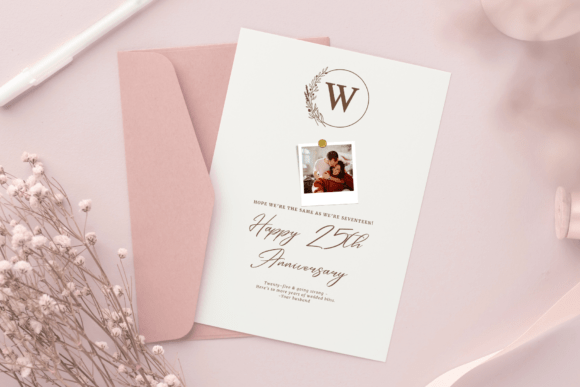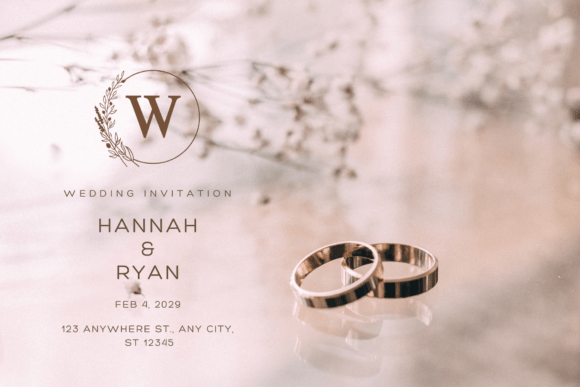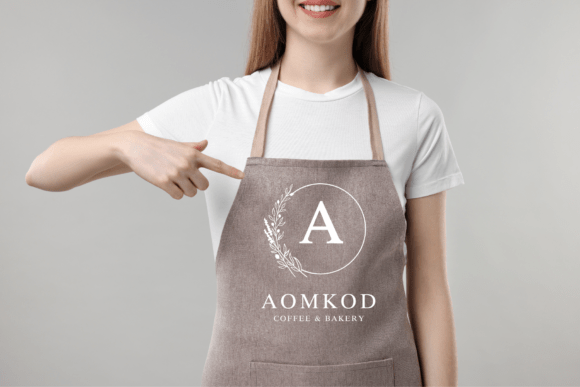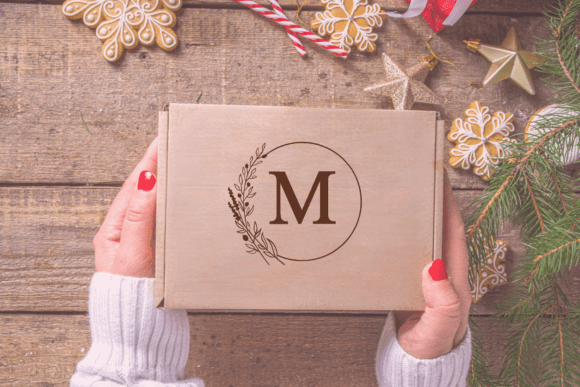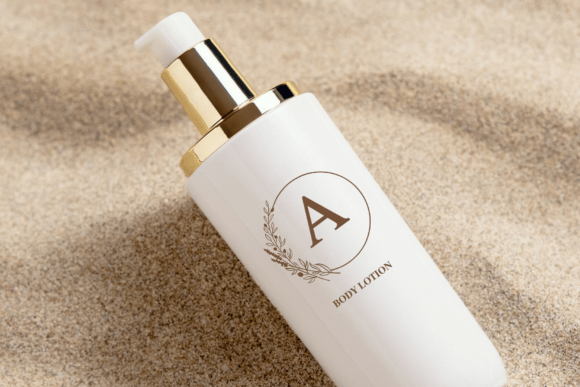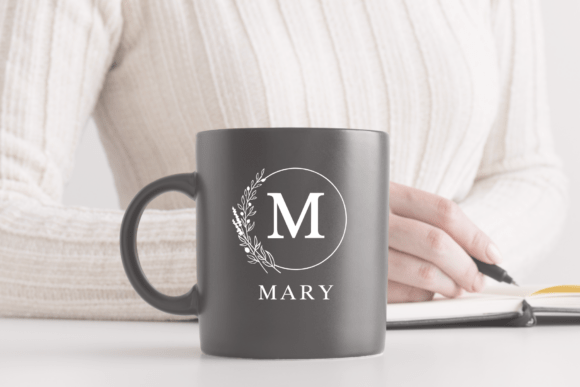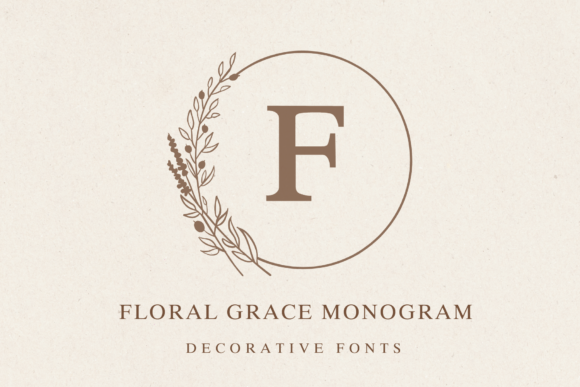
Introducing Floral Grace Monogram Font: Elevate Your Designs with Elegance
Are you a designer or crafter looking for a unique and elegant font to make your creations stand out? Look no further than the Floral Grace Monogram Font. This stunning font is designed specifically for special occasions, featuring decorative letters nestled within a beautiful flower and leaf frame. The result is a sophisticated and charming aesthetic that’s perfect for invitations, wedding cards, and other celebratory designs.
What Makes Floral Grace Monogram Font So Special?
The Floral Grace Monogram Font is more than just a font – it’s a statement piece. Its intricate design features delicate flowers and leaves that beautifully frame each letter, adding a touch of whimsy and romance to any design. Whether you’re creating wedding invitations, party decor, or special occasion cards, this font is sure to impress.
Key Features of Floral Grace Monogram Font
- Elegant Design: The Floral Grace Monogram Font boasts an elegant design that’s perfect for special occasions.
- Decorative Letters: Each letter is carefully crafted with intricate details, making it a standout in any design.
- Beautiful Flower and Leaf Frame: The font features a stunning flower and leaf frame that adds a touch of charm and sophistication.
- Perfect for Invitations and Wedding Cards: The font’s elegant design makes it ideal for wedding invitations, party decor, and other celebratory designs.
- Wedding Invitations: Add a touch of elegance to your wedding invitations with the Floral Grace Monogram Font.
- Party Decor: Use the font to create beautiful party decor, such as banners, garlands, and more.
- Special Occasion Cards: Create stunning special occasion cards, such as birthday, anniversary, and graduation cards.
Tips and Tricks for Getting the Most Out of Floral Grace Monogram Font
To get the most out of the Floral Grace Monogram Font, here are a few tips and tricks to keep in mind:
- Experiment with Colors: Try pairing the font with different colors to create a unique and eye-catching design.
- Mix and Match: Combine the Floral Grace Monogram Font with other fonts and design elements to create a truly one-of-a-kind design.
- Pay Attention to Details: Take the time to carefully craft your design, paying attention to every detail to ensure a beautiful and polished finish.
The Floral Grace Monogram Font is a beautiful and elegant font that’s perfect for designers and crafters looking to add a touch of sophistication to their creations. With its intricate design and delicate details, this font is sure to impress. Whether you’re creating wedding invitations, party decor, or special occasion cards, the Floral Grace Monogram Font is a great choice. So why wait? Download the font today and start creating stunning designs that will leave a lasting impression!